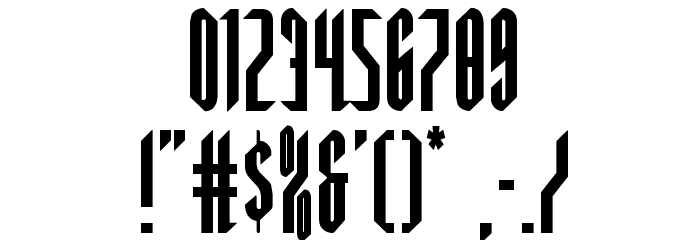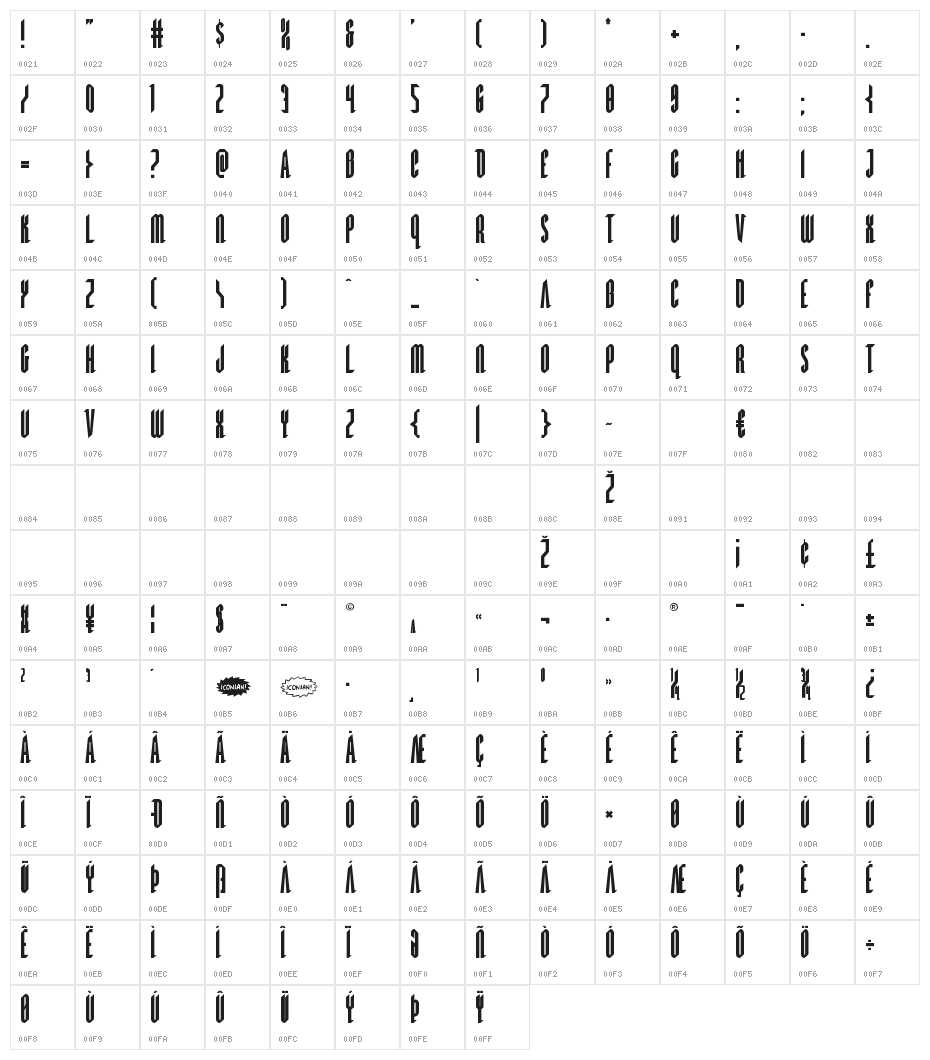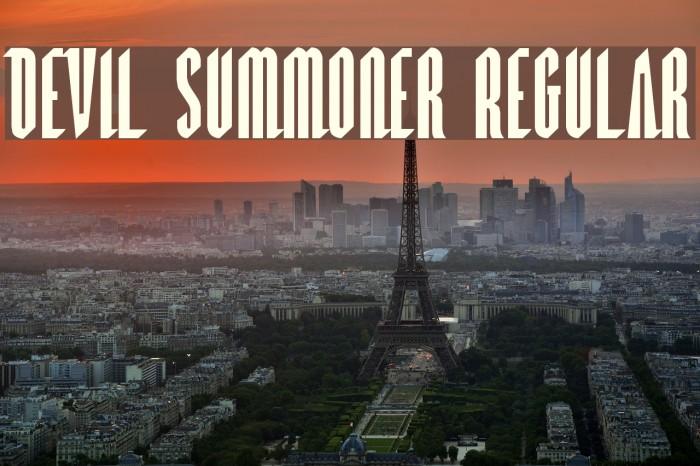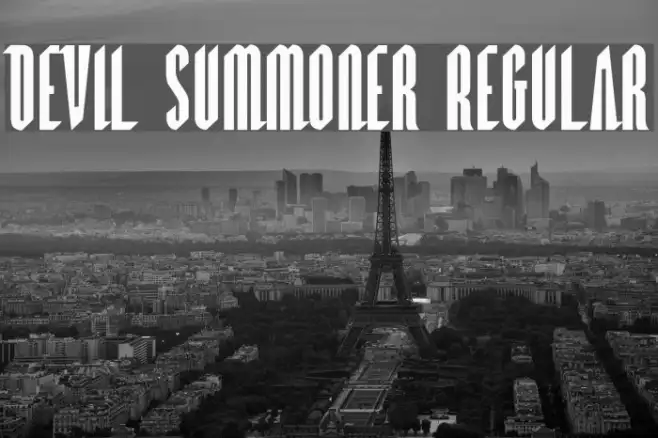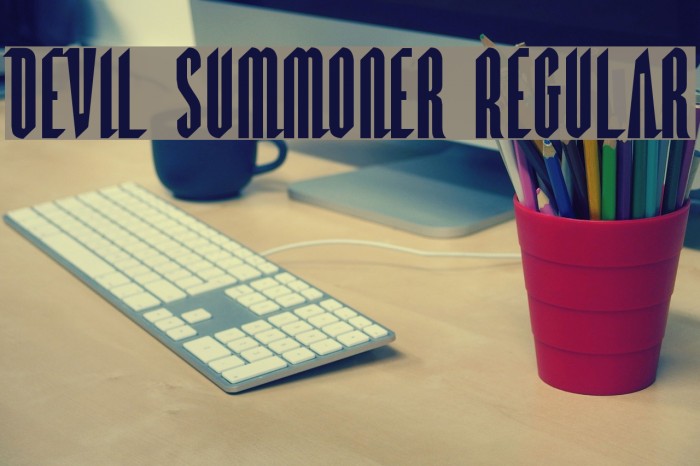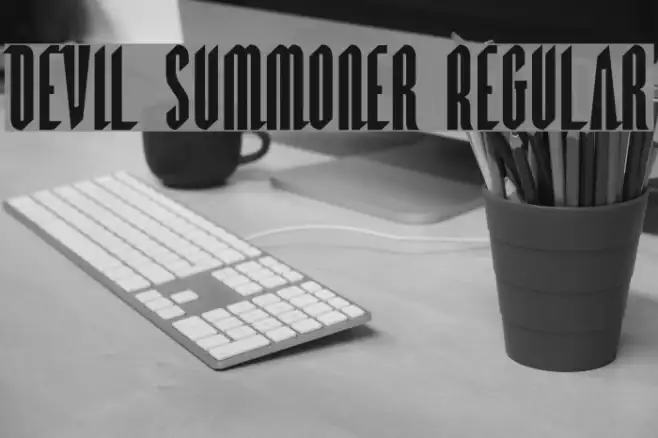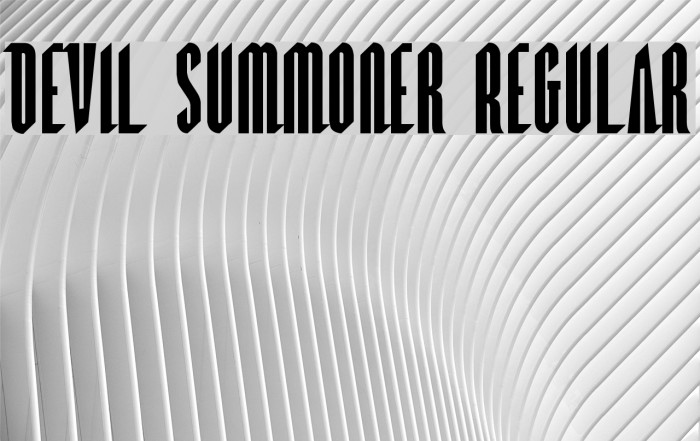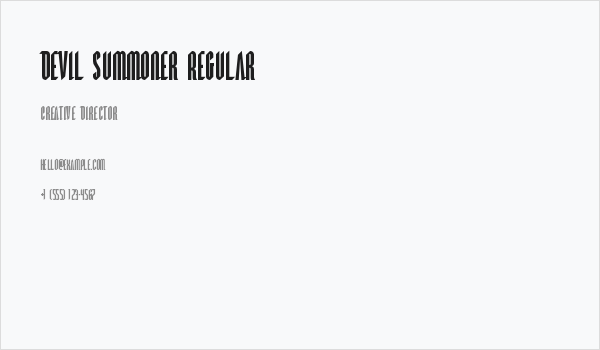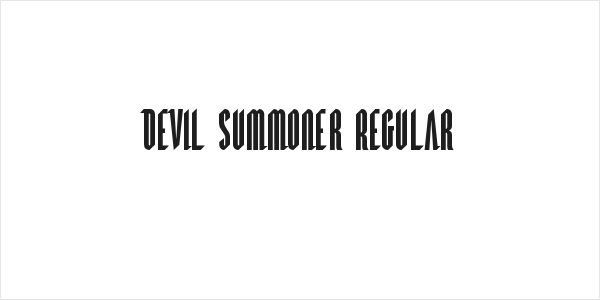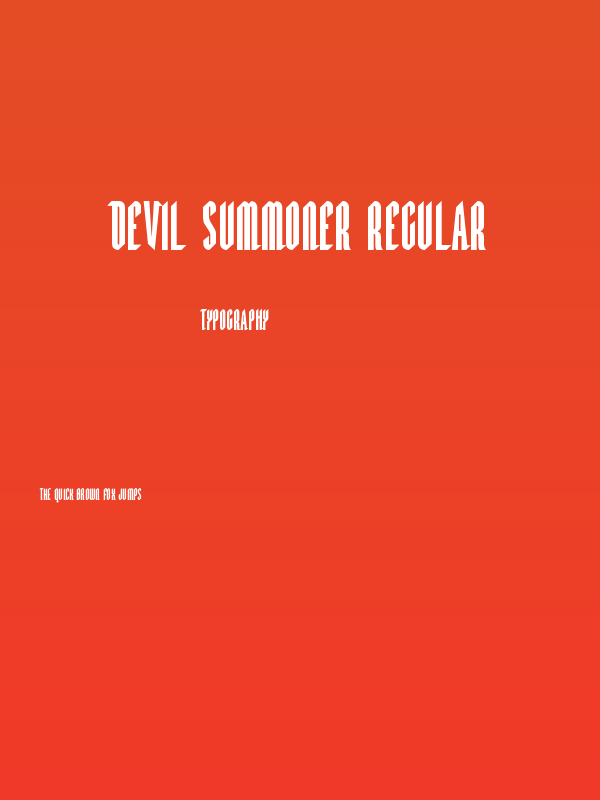
Devil Summoner Regular Font
Devil Summoner Regular Description
This font features a bold and striking design with sharp, angular edges and a gothic-inspired aesthetic. The uppercase letters are tall and narrow, giving a sense of height and drama. The lowercase letters maintain the same sharpness, creating a cohesive look throughout. Numbers and special characters are designed with the same attention to detail, ensuring consistency. The overall style is reminiscent of medieval or fantasy themes, making it ideal for projects that require a dramatic and eye-catching typeface.
| Overall Style | Gothic, Dramatic |
| Proposed Projects | Ideal for fantasy-themed posters, video game titles, book covers, and branding that requires a dramatic flair. |